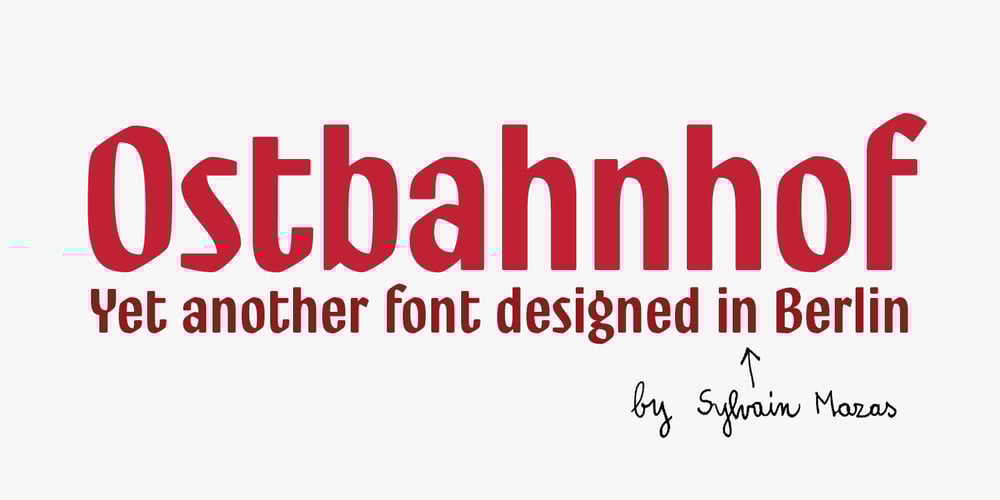
Ostbahnhof
Ostbahnhof font
Ostbahnhof Font Family was designed by Sylvain Mazas and published by Sylvain Mazas. Ostbahnhof contains 5 styles and family package options. Ostbahnhof is a headline font inspired by both german blackletter and hand-painted signs. The 4 weights can be combined together to achieve a fancy letterpress effect, where slightly rounded corners are not proportional to the font size. Not sure what I’m talking about? Have a look at the examples. youtube video